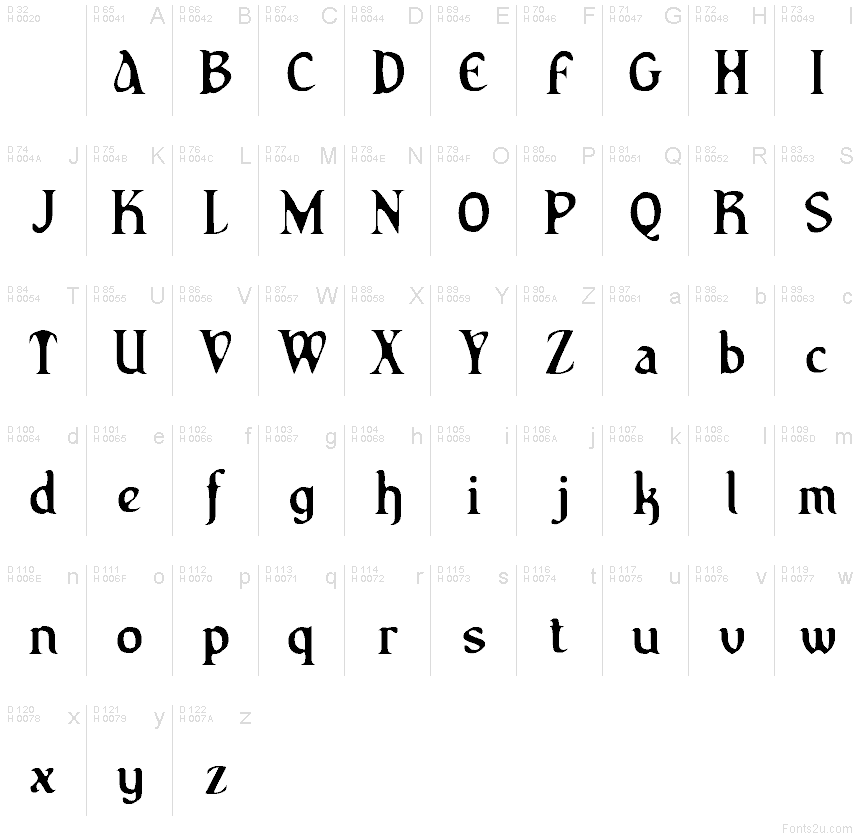
CSBrancoDrawn-Regular Demo
CS Branco Drawn font by Craft Supply Co. is a free Gothic font that evokes intricate medieval touches. Long stems and geometric forms take front stage and each of them appears in the uppercase set that additionally presents visitors with artistic curves.